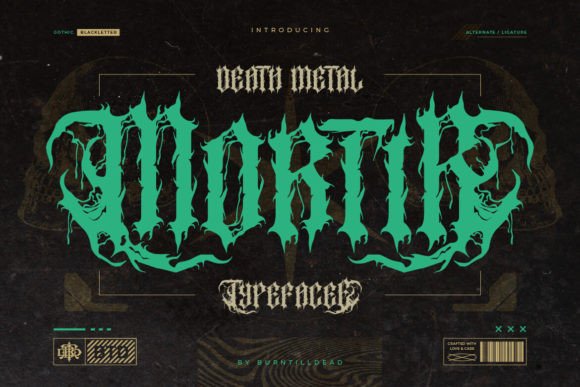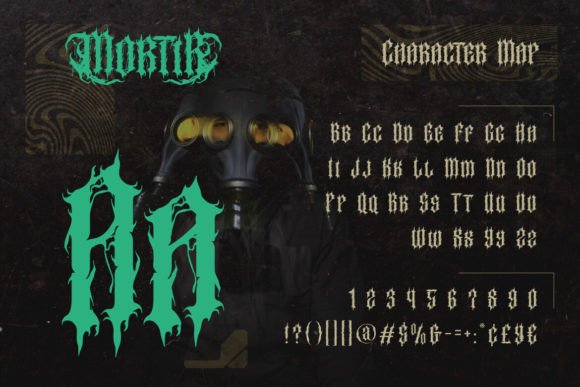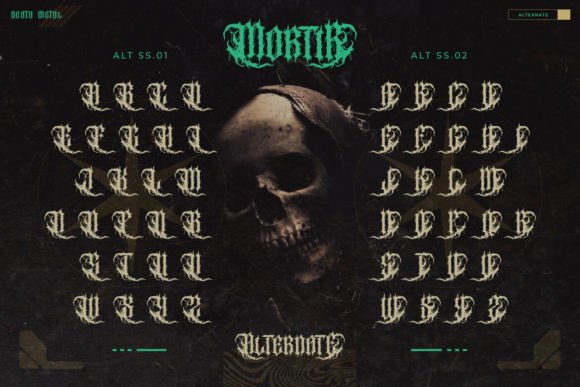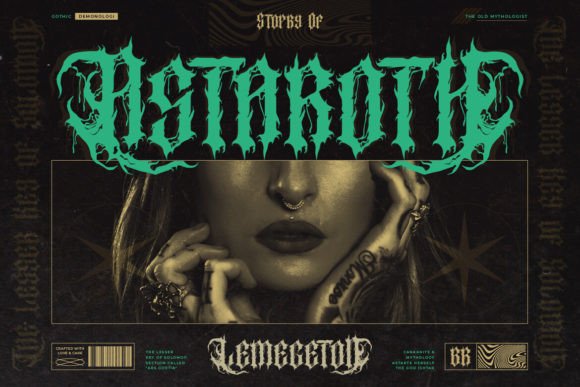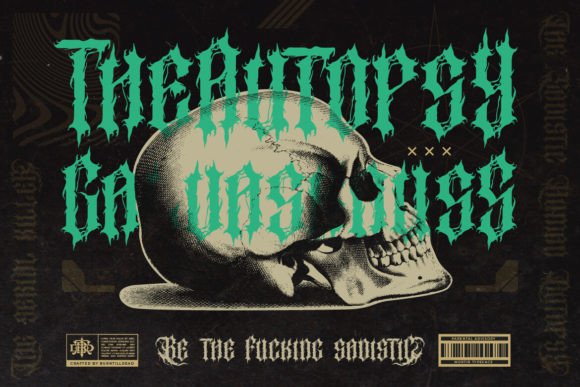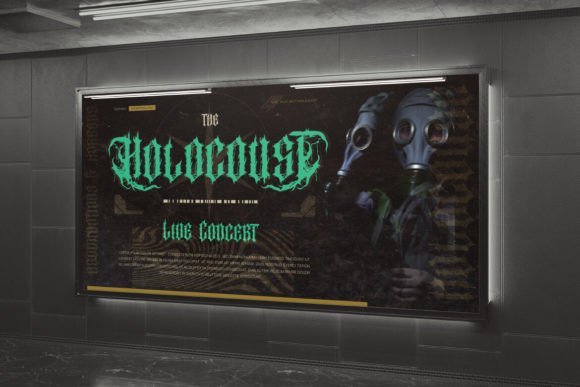
Introduction to Mortir Font
Imagine yourself in the middle of a chaotic metal concert, surrounded by the deafening roar of the crowd and the face-melting riffs of the band. The air is electric, and the energy is palpable. You’re about to unleash your creativity on a new project, and you need a design resource that can capture the intensity of the moment. That’s where the Mortir Font comes in – a bold, rugged, and sharp-edged font that embodies the spirit of metal music.
As a designer, you know how crucial it is to have the right tools at your disposal to bring your creative vision to life. The Mortir Font is a high-quality design resource that offers a unique twist on traditional typography. Its twisted shapes and sense of aggression make it perfect for capturing the spirit of metal in visual form, and its transparent background allows for seamless integration into any design project.
- Unique characteristics: Mortir Font features a unique blend of modern and vintage elements, making it perfect for creative projects that require a touch of elegance and sophistication.
Honest Review: Mortir Font
I recently came across the Mortir Font, and I must say it’s a great addition to any designer’s toolkit. This font is perfect for creative projects that require a unique and edgy feel.
- High quality: The Mortir Font is crisp and clear, making it ideal for both digital and print designs.
- Limited character set: The Mortir Font only includes a limited set of characters, which may not be suitable for all design projects.
- Not ideal for body text: Due to its unique style, the Mortir Font may not be the best choice for large blocks of body text.
Overall, I’m impressed with the Mortir Font. It’s a great design resource for anyone looking to add some creativity to their projects. Just be mindful of its limitations, and you’ll be able to get the most out of this high-quality font.
Common Use Cases for Mortir Font
Mortir Font is ideal for a variety of creative projects, including brochures, business cards, and social media graphics. Its high-quality design and transparent background feature make it a versatile design resource that can be used in a range of contexts.